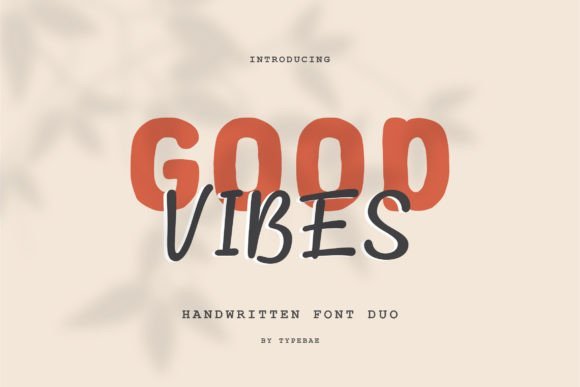
When Creativity Strikes
Have you ever been brainstorming a new design project, and suddenly, the perfect idea hits you? The excitement is palpable, and you can’t wait to bring your vision to life. As you start sketching out your concept, you realize that the right font can make all the difference. That’s where the Good Vibes Duo Font comes in – a harmonious blend of a bold handwritten script and a hand-drawn sans serif font.
This charming font duo is designed to add a touch of personality and warmth to any design project. Whether you’re working on a logo, a marketing campaign, or a social media post, Good Vibes Duo Font brings a unique and captivating style that sets your design apart from the rest. For designers, it’s a valuable tool that can help you convey your message in a creative and engaging way.
Good Vibes Duo Font Key Features
- Unique Characteristics: Duo font with a modern, elegant design; perfect for creating a harmonious and balanced visual effect
- Font Style: A mix of bold and regular font styles, allowing for a dynamic and versatile design
Good Vibes Duo Font Review
I recently had the chance to work with the Good Vibes Duo Font, and I have to say it’s a unique and quirky addition to any design project. Here are my thoughts:
- Fun and playful feel: The Good Vibes Duo Font is perfect for projects that need a bit of whimsy and personality.
- Pairing options: The font comes with two companion fonts that work well together to create a cohesive and visually appealing design.
- Good legibility: Despite its playful nature, the font is still easy to read, even at smaller font sizes.
- Limited font weights: The font only comes in a few weights, which may limit its versatility for projects that require a wide range of font styles.
- No bold or italic options: If you need to emphasize certain text, you’ll have to rely on other fonts or styling techniques.
The Good Vibes Duo Font is a great choice for projects that need a lighthearted and approachable feel. While it has some limitations, its unique charm and pairing options make it a great addition to any design arsenal. If you’re looking for a fun and playful font, the Good Vibes Duo Font is definitely worth checking out.
Getting the Most Out of Good Vibes Duo Font
To get the most out of the Good Vibes Duo Font, consider the following tips:
- Use the font in conjunction with other fonts to create a visually appealing design.
- Experiment with different font sizes and colors to add depth and interest to your design.
- Use the font in a variety of contexts, such as in headings, subheadings, and body text.
The Good Vibes Duo Font is well-suited for a variety of use cases, including:
- Colorful graphics and patterns to create a visually appealing background
- Photos of nature, flowers, and sunsets to evoke a sense of happiness and well-being
- Minimalist illustrations to add a touch of simplicity and elegance
- Calming colors and soothing patterns to create a peaceful atmosphere
- Minimalist illustrations of plants and flowers to add a touch of nature
- A simple border to frame the design and add a sense of structure
Alternatives to Good Vibes Duo Font
The Great Vibes Font is a handwritten font designed by Handmade Font Foundry. It’s perfect for creating a casual, friendly atmosphere in branding, advertising, and editorial content. Great Vibes Font has a similar feel to Good Vibes Duo Font, but with more rounded edges and a softer look.
The Carolyna Pro Font is a modern script font designed by Laura Worthington. It’s ideal for creating a sophisticated, elegant look in high-end branding, packaging, and invitation design. Carolyna Pro Font has a more refined and polished look compared to Good Vibes Duo Font, making it suitable for formal applications.